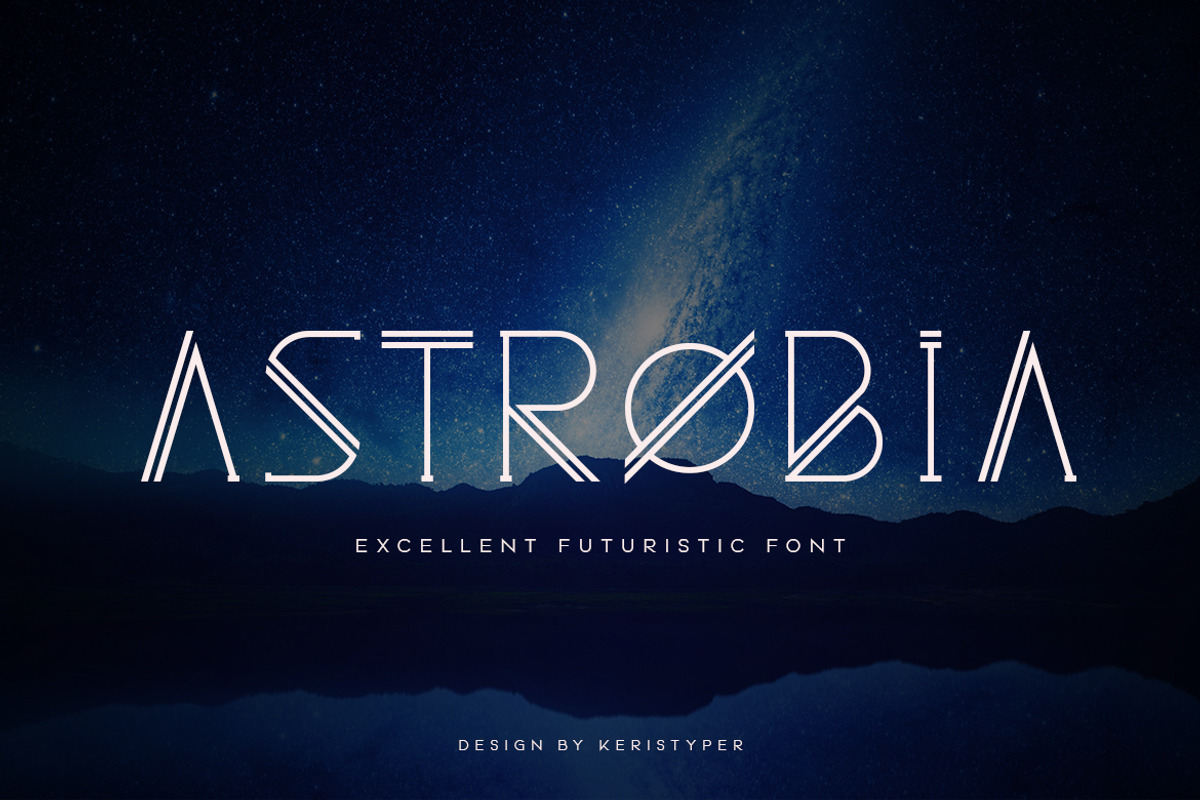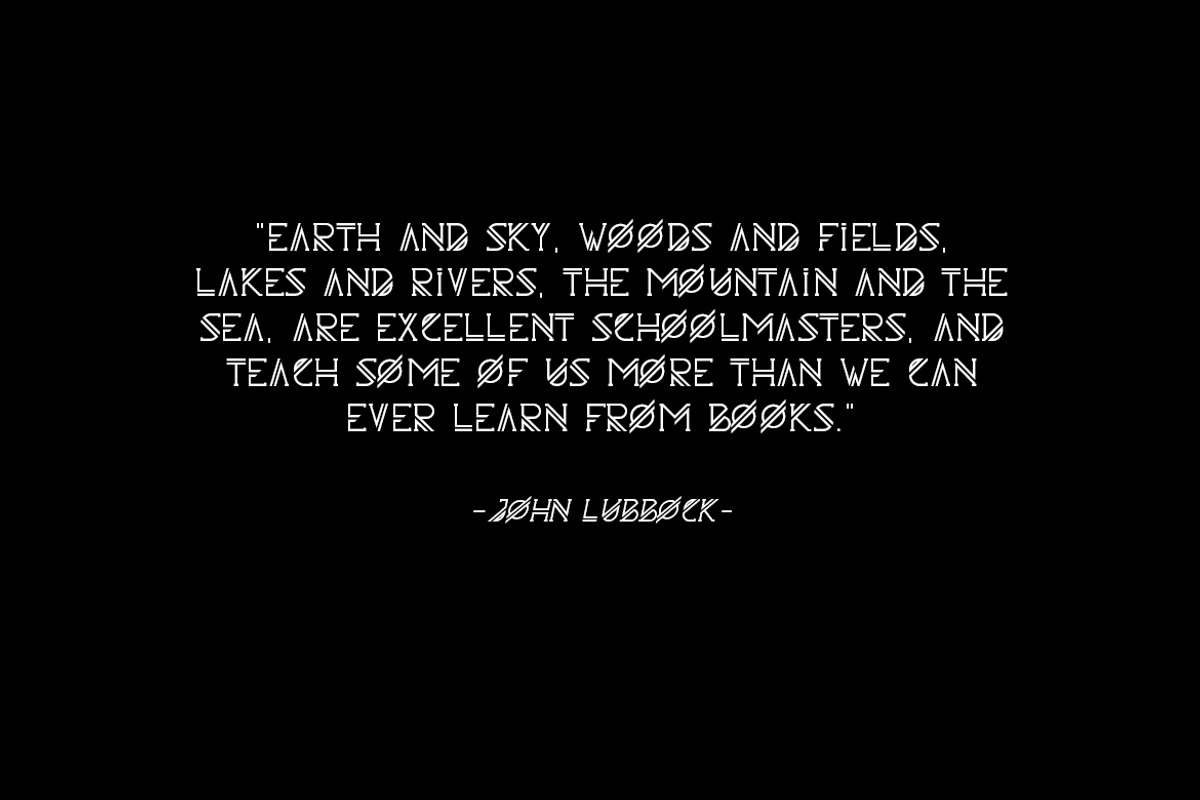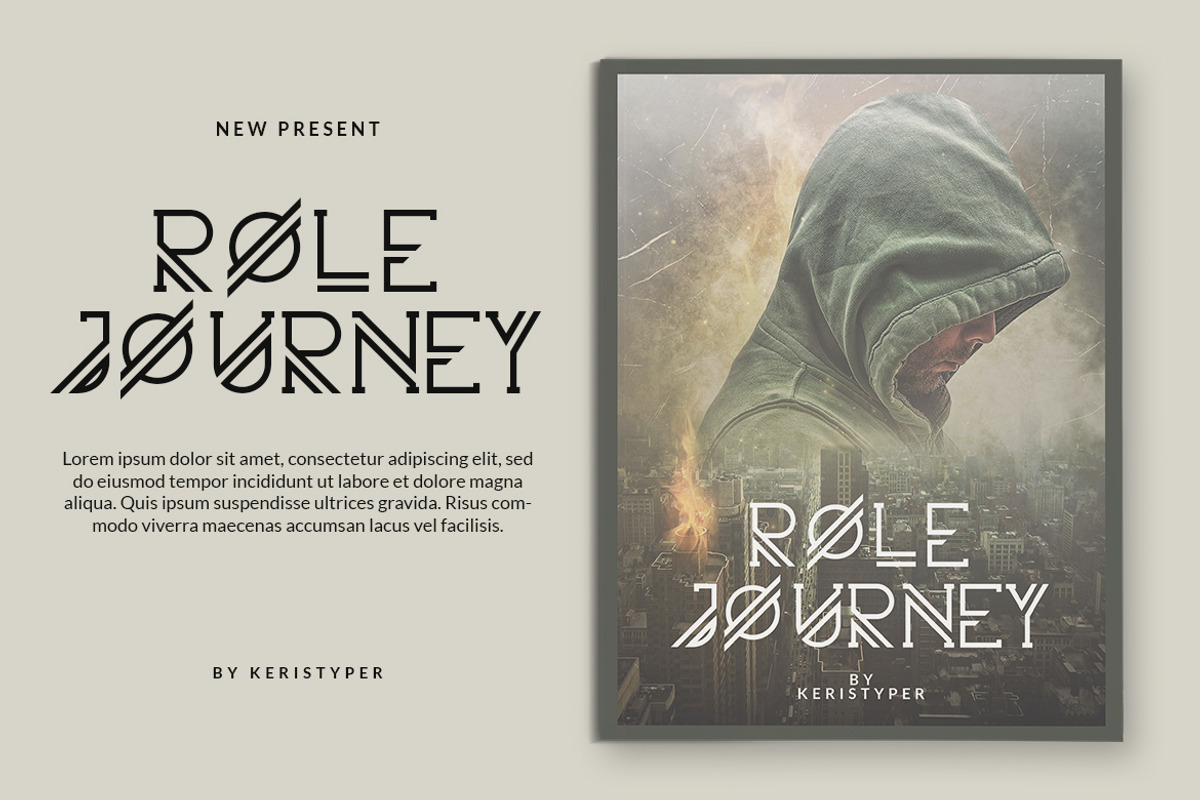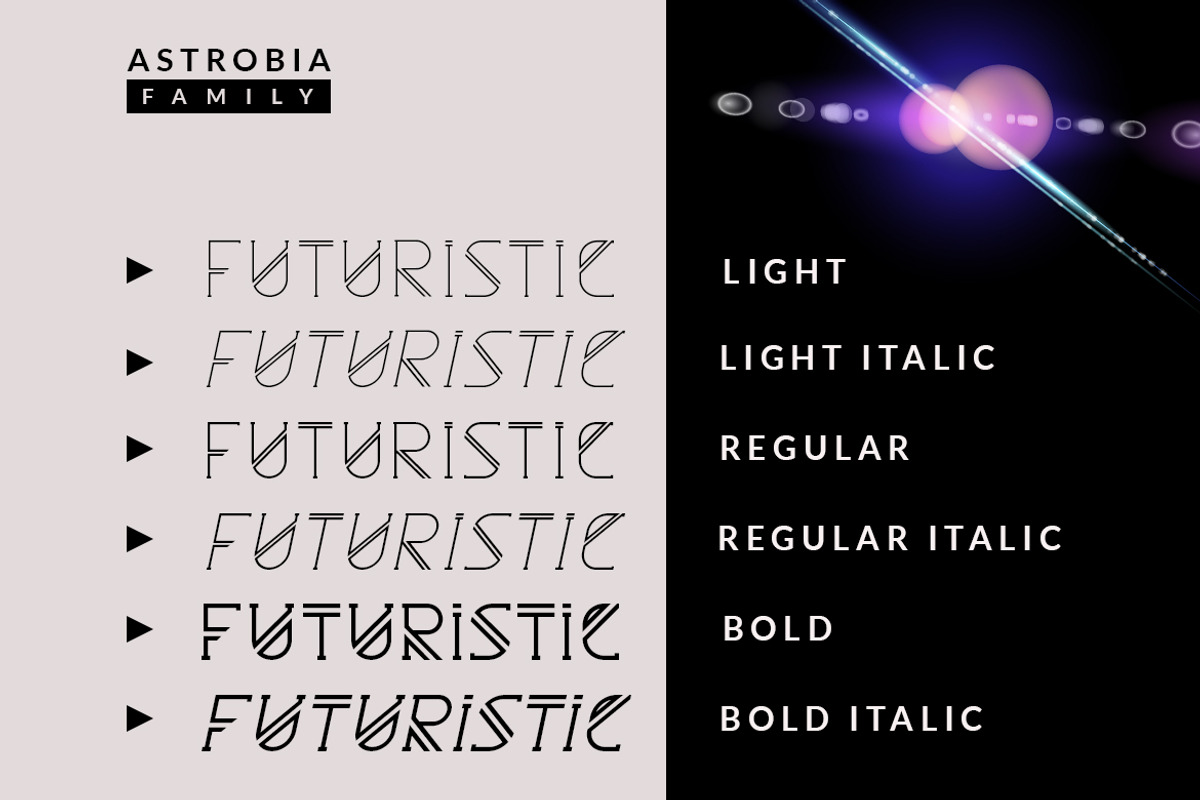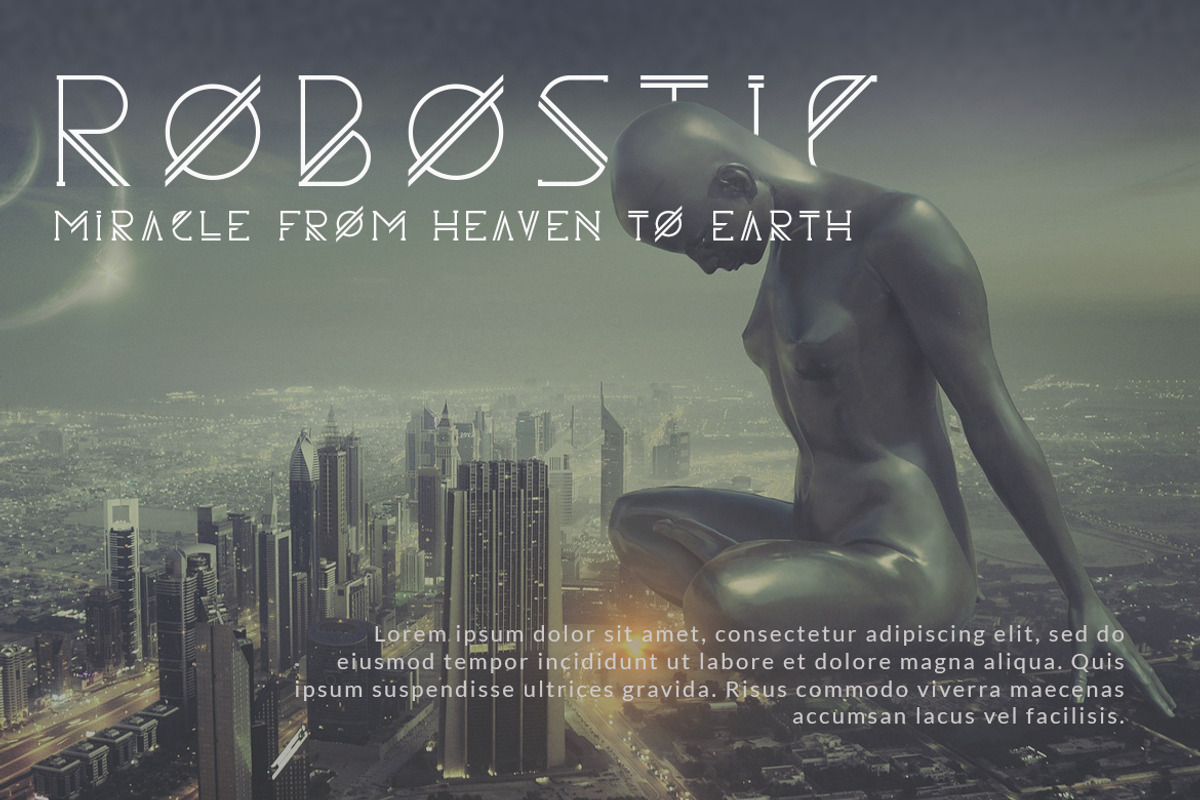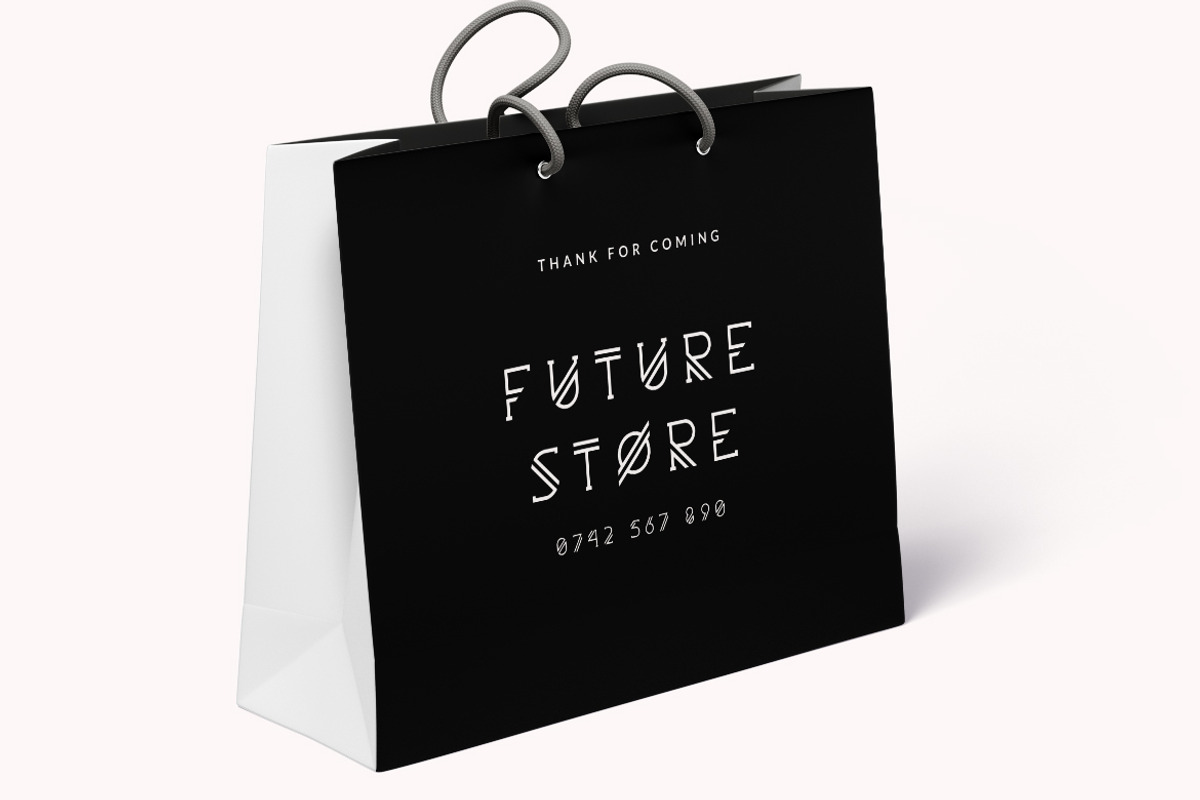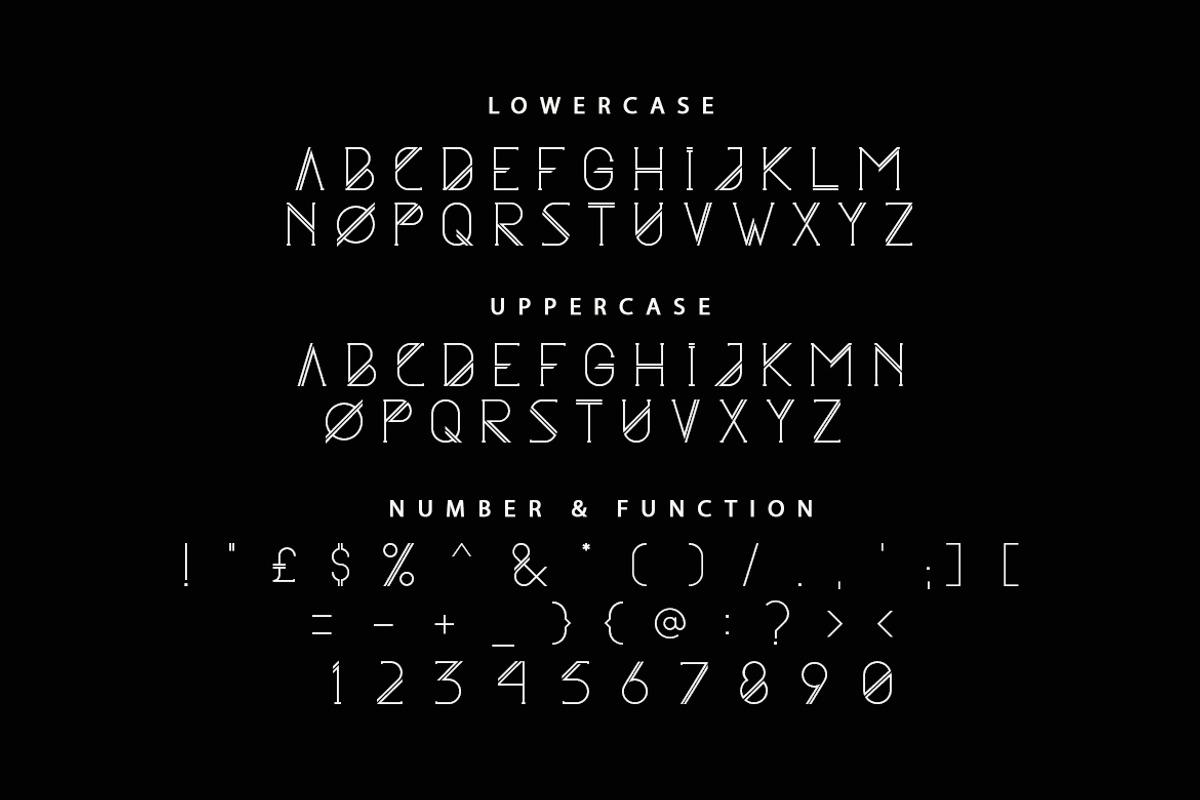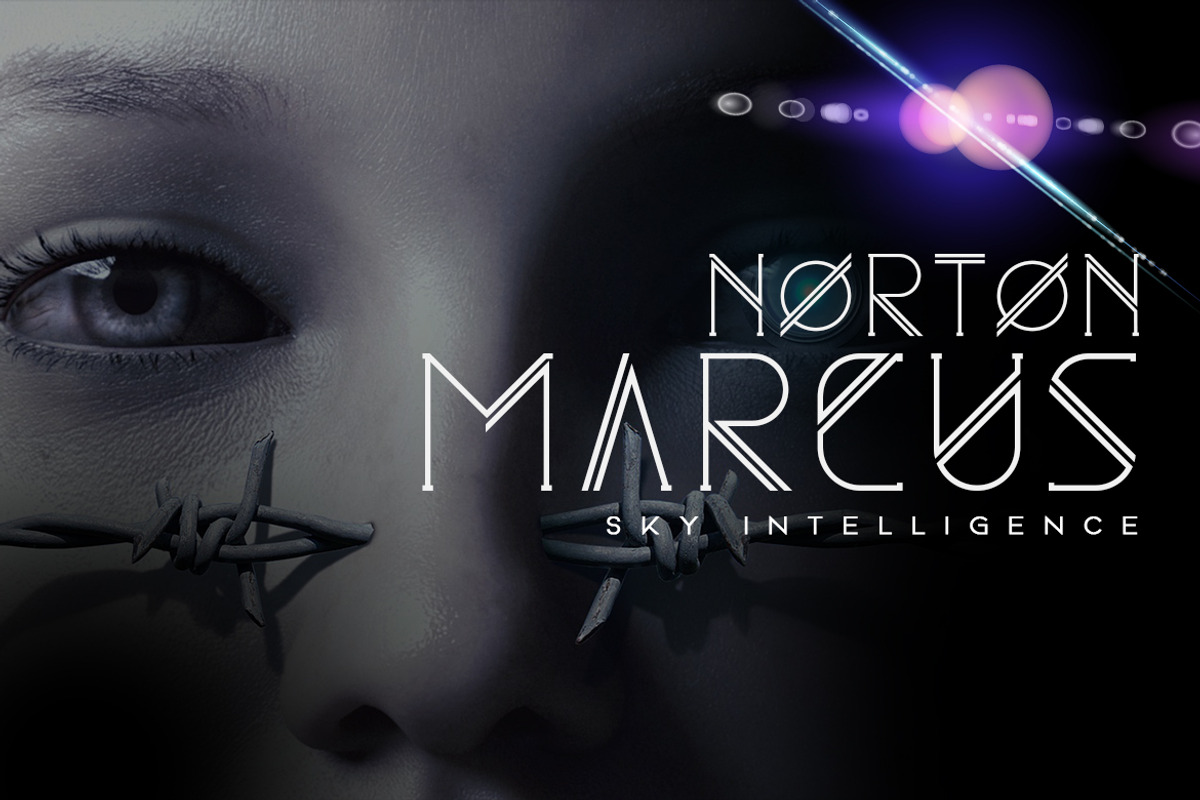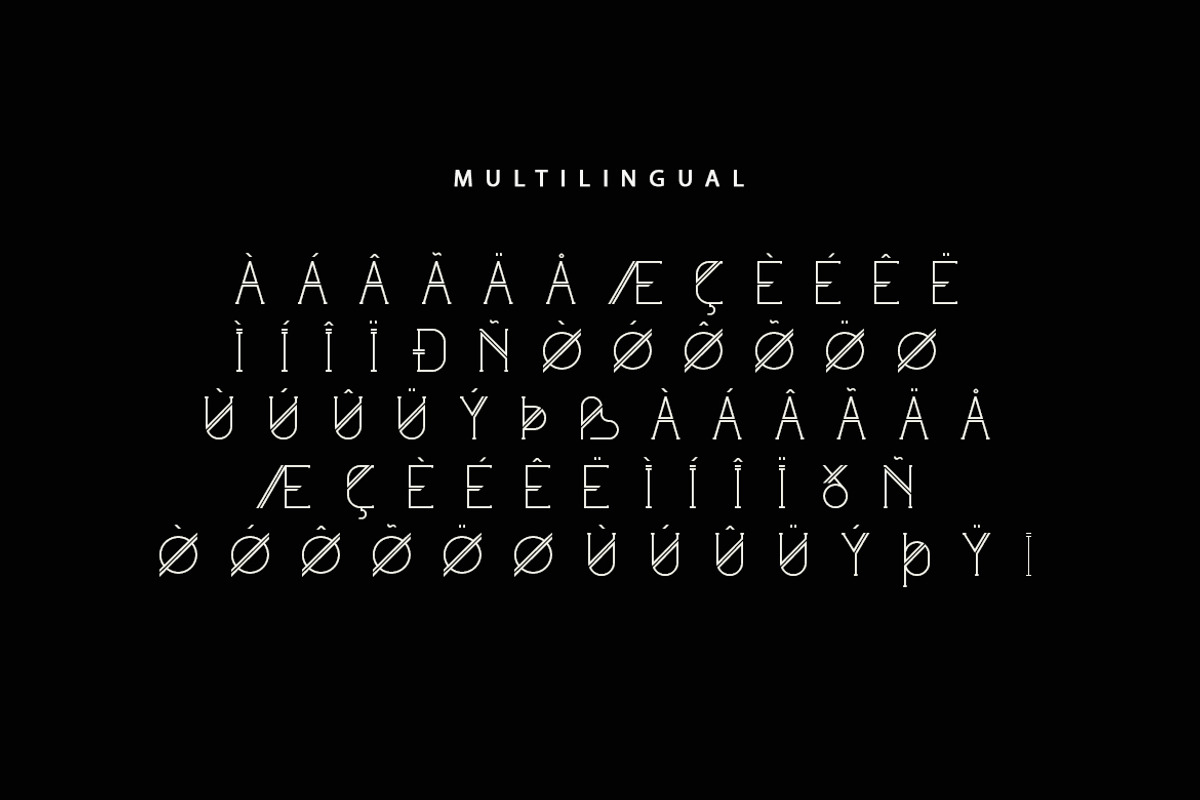
Astrobia Typeface
The Astrobia is a modern and futuristic display family with a simple and elegant style. It includes 6 styles in 3 weights, which makes it perfect to create multiple unique designs.
Astrobia Font multilingual support: Afrikaans, Albanian, Catalan, Danish, Dutch, English, Estonian, French, Finnish, German, Icelandic, Indonesian, Italian, Malay, Norwegian, Portuguese, Spanish, Swedish, Zulu, and many more.
- Standard & Multilingual glyphs